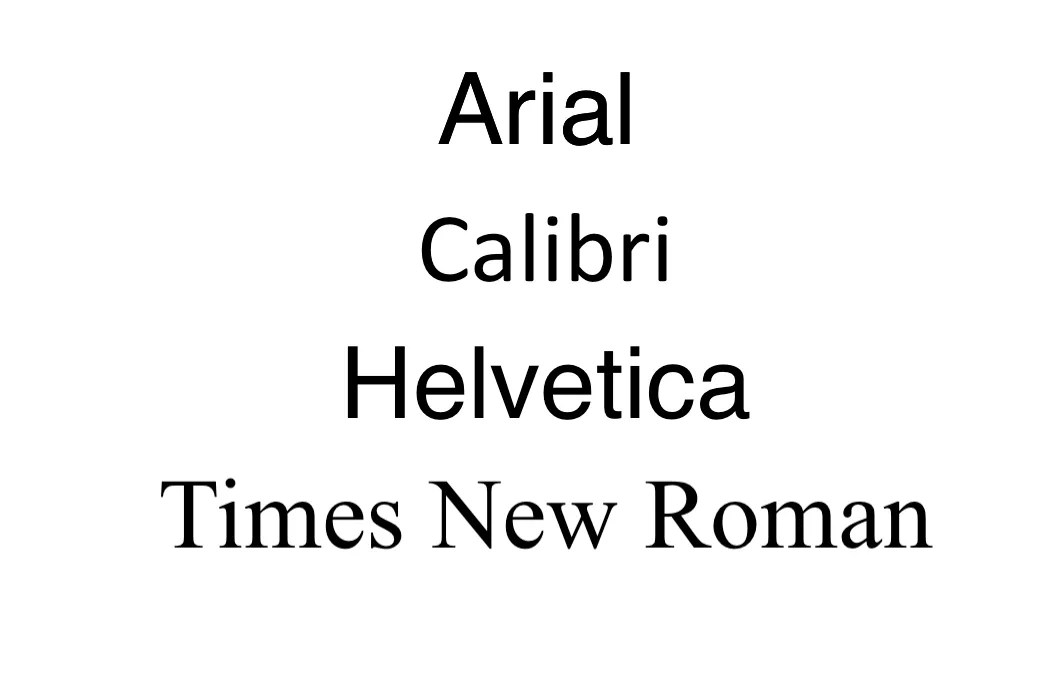
Best Font For Formal Email . 15 email safe fonts for email marketing campaigns [+5 worst font styles for emails] the fonts you choose can significantly impact how your message is received. But do email fonts matter that much? The two main types of font to consider for your email content are serif and sans serif. Serif font designs include a small serif or tail at the end of each character. Let’s talk about why you. The choice of fonts in your emails holds considerable sway over how recipients perceive them. 13 best email fonts to use for your campaign. A quirky font sent from a work email address isn’t a great way to represent your organization professionally. Each of the best fonts for email is known for its unique attributes and is used best in some or all elements of an email copy. Fortunately, you don’t have to. The right font family means your email copy is a success and oozes satisfaction not.
The two main types of font to consider for your email content are serif and sans serif. 13 best email fonts to use for your campaign. A quirky font sent from a work email address isn’t a great way to represent your organization professionally. Serif font designs include a small serif or tail at the end of each character. Fortunately, you don’t have to. The right font family means your email copy is a success and oozes satisfaction not. But do email fonts matter that much? 15 email safe fonts for email marketing campaigns [+5 worst font styles for emails] the fonts you choose can significantly impact how your message is received. The choice of fonts in your emails holds considerable sway over how recipients perceive them. Each of the best fonts for email is known for its unique attributes and is used best in some or all elements of an email copy.
Best Font For Formal Email The two main types of font to consider for your email content are serif and sans serif. Fortunately, you don’t have to. The two main types of font to consider for your email content are serif and sans serif. The choice of fonts in your emails holds considerable sway over how recipients perceive them. 15 email safe fonts for email marketing campaigns [+5 worst font styles for emails] the fonts you choose can significantly impact how your message is received. Serif font designs include a small serif or tail at the end of each character. Each of the best fonts for email is known for its unique attributes and is used best in some or all elements of an email copy. 13 best email fonts to use for your campaign. The right font family means your email copy is a success and oozes satisfaction not. A quirky font sent from a work email address isn’t a great way to represent your organization professionally. But do email fonts matter that much? Let’s talk about why you.
2 Best Font For Formal Letters How And Where To Use Them Best Font For Formal Email 15 email safe fonts for email marketing campaigns [+5 worst font styles for emails] the fonts you choose can significantly impact how your message is received. But do email fonts matter that much? A quirky font sent from a work email address isn’t a great way to represent your organization professionally. The right font family means your email copy is. Best Font For Formal Email.
Best Email Signatures Template Business Best Font For Formal Email 13 best email fonts to use for your campaign. The choice of fonts in your emails holds considerable sway over how recipients perceive them. Each of the best fonts for email is known for its unique attributes and is used best in some or all elements of an email copy. The two main types of font to consider for your. Best Font For Formal Email.
The Best Font for Your Email Signature in 2024 [14 Great Options to Pick] Best Font For Formal Email Each of the best fonts for email is known for its unique attributes and is used best in some or all elements of an email copy. Let’s talk about why you. Serif font designs include a small serif or tail at the end of each character. The two main types of font to consider for your email content are serif. Best Font For Formal Email.
2 Best Font For Formal Letters How And Where To Use Them Best Font For Formal Email The two main types of font to consider for your email content are serif and sans serif. The choice of fonts in your emails holds considerable sway over how recipients perceive them. But do email fonts matter that much? Let’s talk about why you. Serif font designs include a small serif or tail at the end of each character. The. Best Font For Formal Email.
Business Formal Letter 8+ Examples, Format, Tips, PDF Best Font For Formal Email But do email fonts matter that much? The choice of fonts in your emails holds considerable sway over how recipients perceive them. The two main types of font to consider for your email content are serif and sans serif. Each of the best fonts for email is known for its unique attributes and is used best in some or all. Best Font For Formal Email.
8 Best Fonts for Email (And Custom Email Font Ideas) Best Font For Formal Email Each of the best fonts for email is known for its unique attributes and is used best in some or all elements of an email copy. But do email fonts matter that much? The choice of fonts in your emails holds considerable sway over how recipients perceive them. 15 email safe fonts for email marketing campaigns [+5 worst font styles. Best Font For Formal Email.
Koma Script Title Font / 10 Script Fonts You Need to Download Best Font For Formal Email Serif font designs include a small serif or tail at the end of each character. 13 best email fonts to use for your campaign. The two main types of font to consider for your email content are serif and sans serif. A quirky font sent from a work email address isn’t a great way to represent your organization professionally. But. Best Font For Formal Email.
26 Tips on Font for Emails to Distinguish Your Correspondence Best Font For Formal Email Let’s talk about why you. Fortunately, you don’t have to. 13 best email fonts to use for your campaign. The right font family means your email copy is a success and oozes satisfaction not. 15 email safe fonts for email marketing campaigns [+5 worst font styles for emails] the fonts you choose can significantly impact how your message is received.. Best Font For Formal Email.
Free Canva Cursive Script Fonts for Designing Winning Projects Best Font For Formal Email A quirky font sent from a work email address isn’t a great way to represent your organization professionally. 15 email safe fonts for email marketing campaigns [+5 worst font styles for emails] the fonts you choose can significantly impact how your message is received. Let’s talk about why you. The choice of fonts in your emails holds considerable sway over. Best Font For Formal Email.